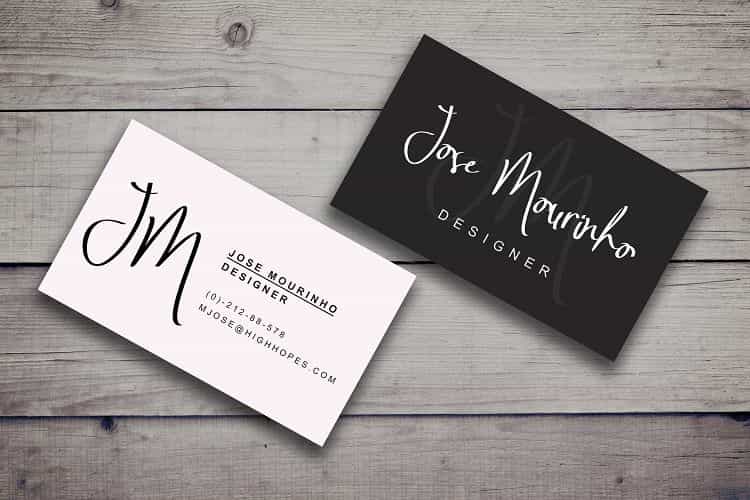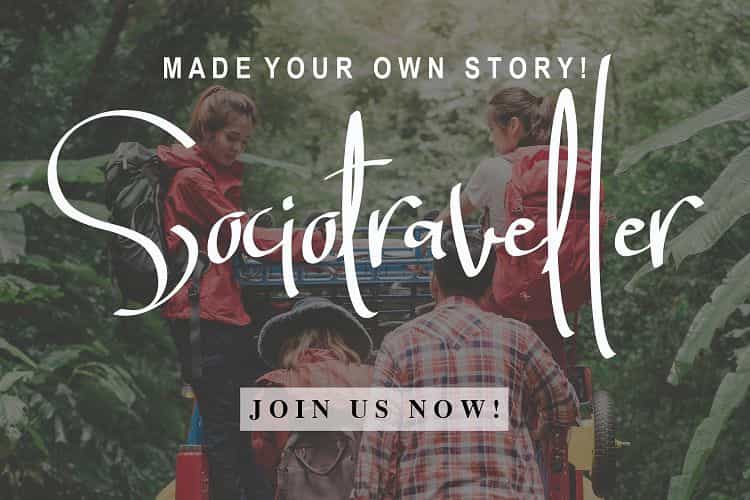
Introducing Middletown. Middletown is a typeface with simple and elegant taste, it comes in 2 Elegant Variations, opentype features like ligatures and free Slant Version. We maintain this font to be elegant, readable, stylish, catchy and absolutely easy to use.